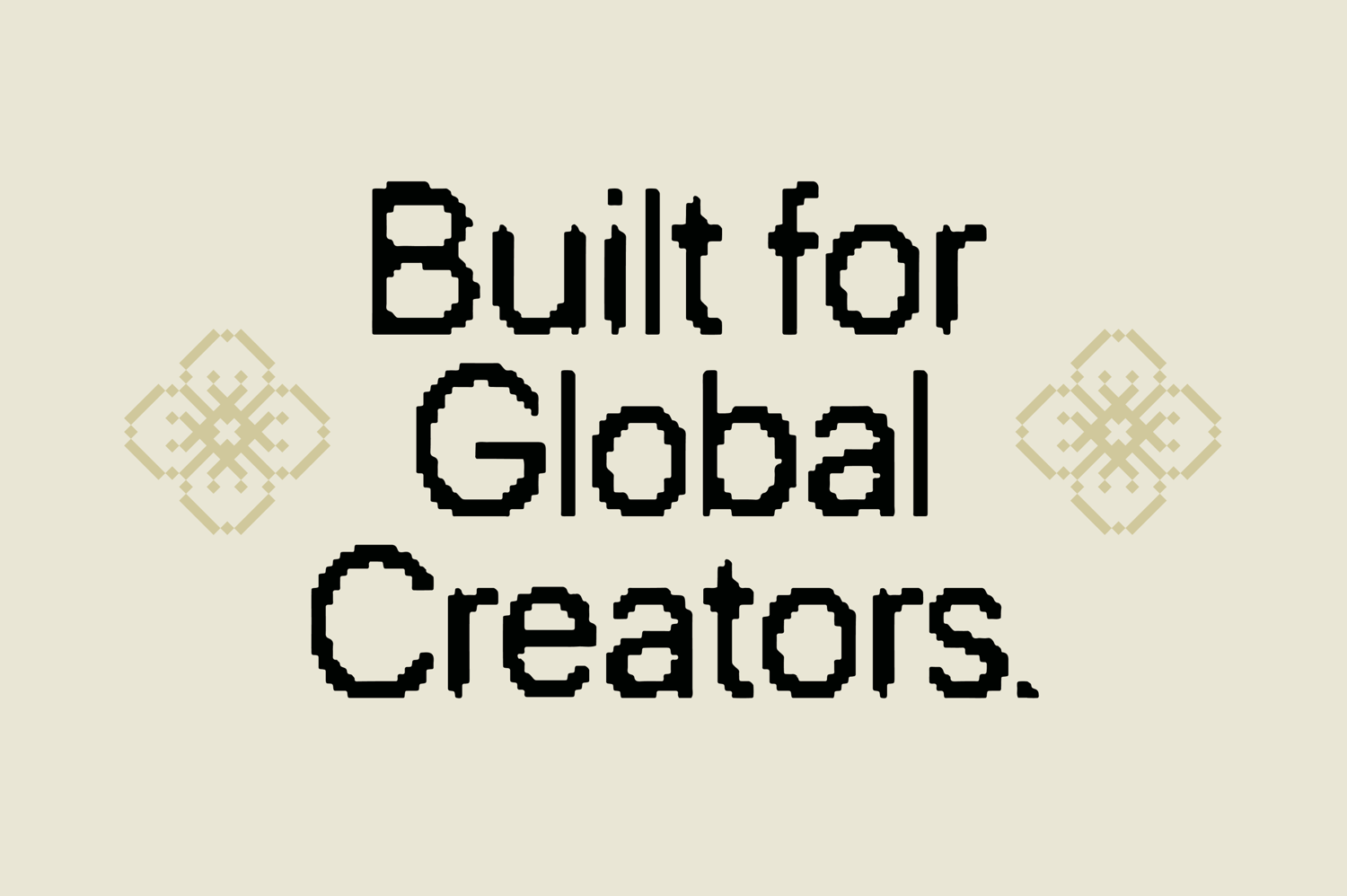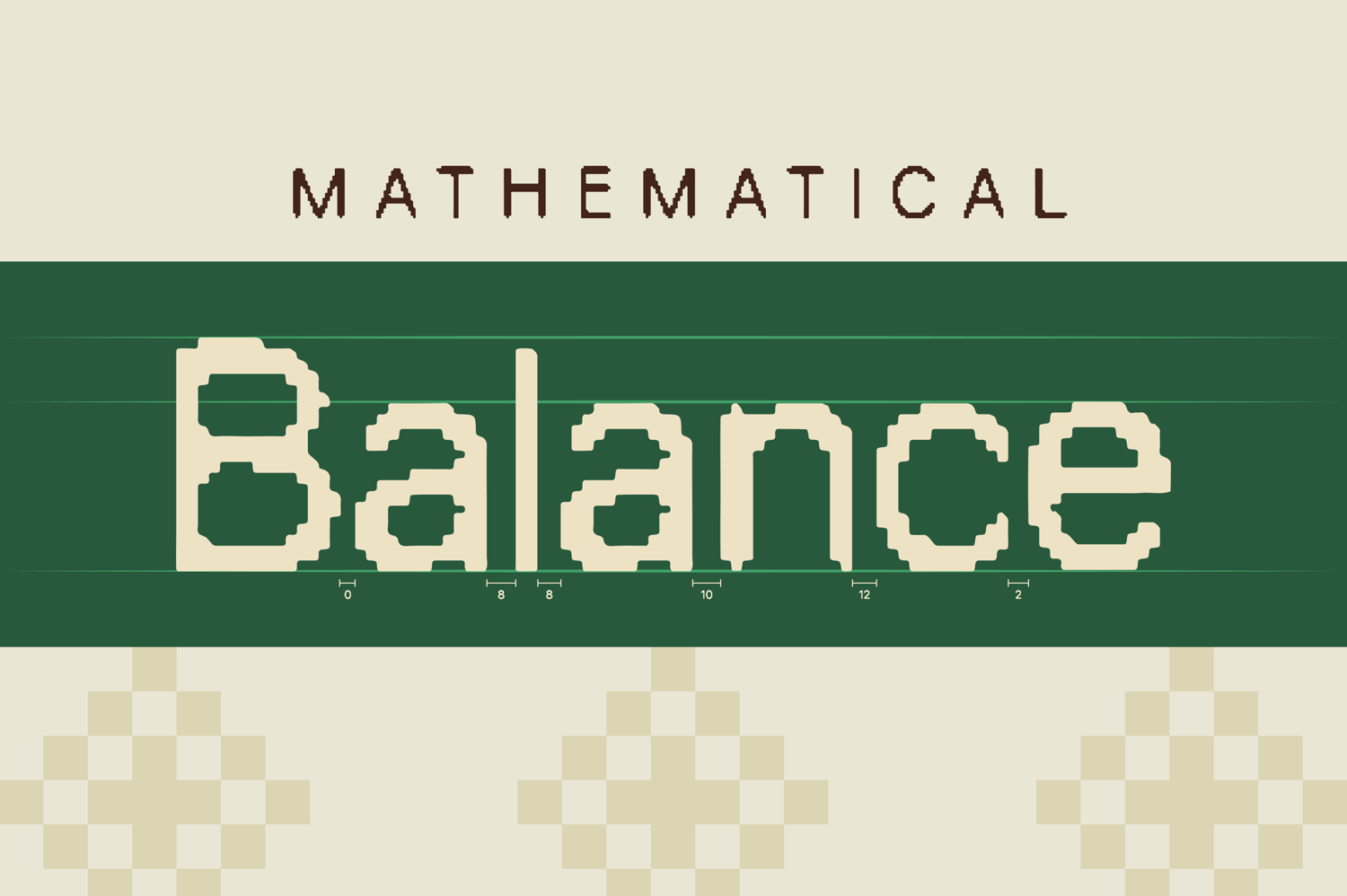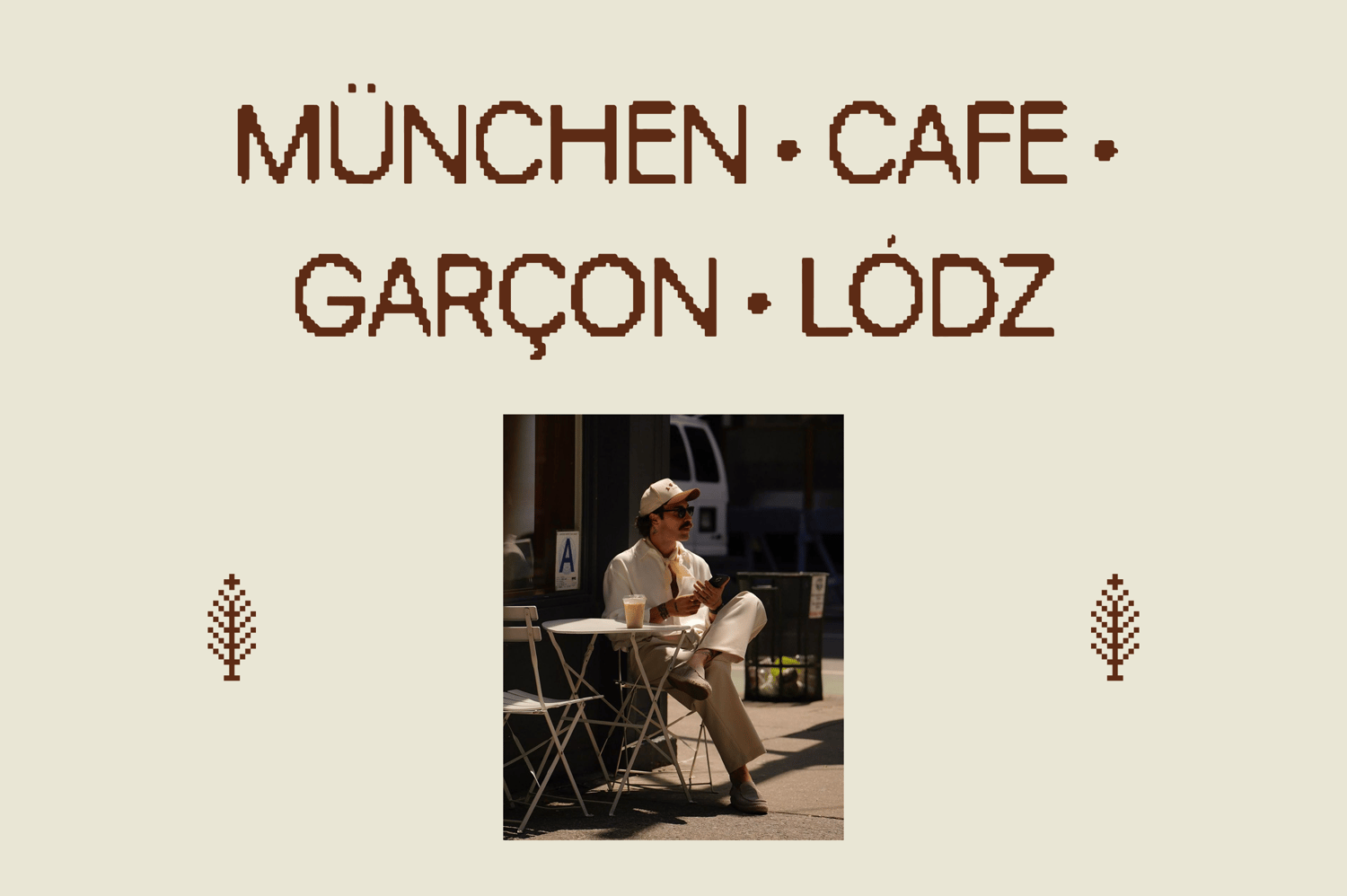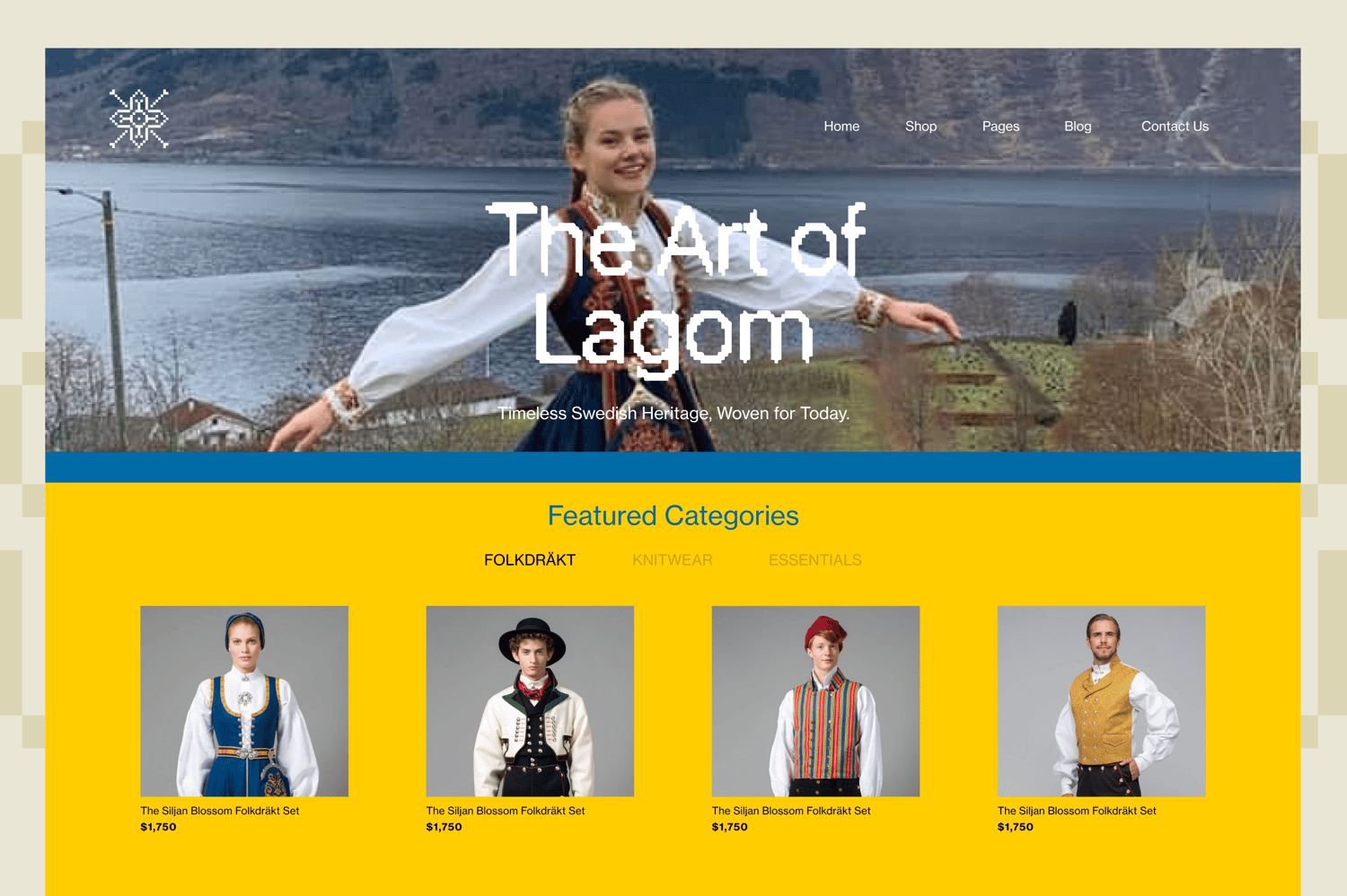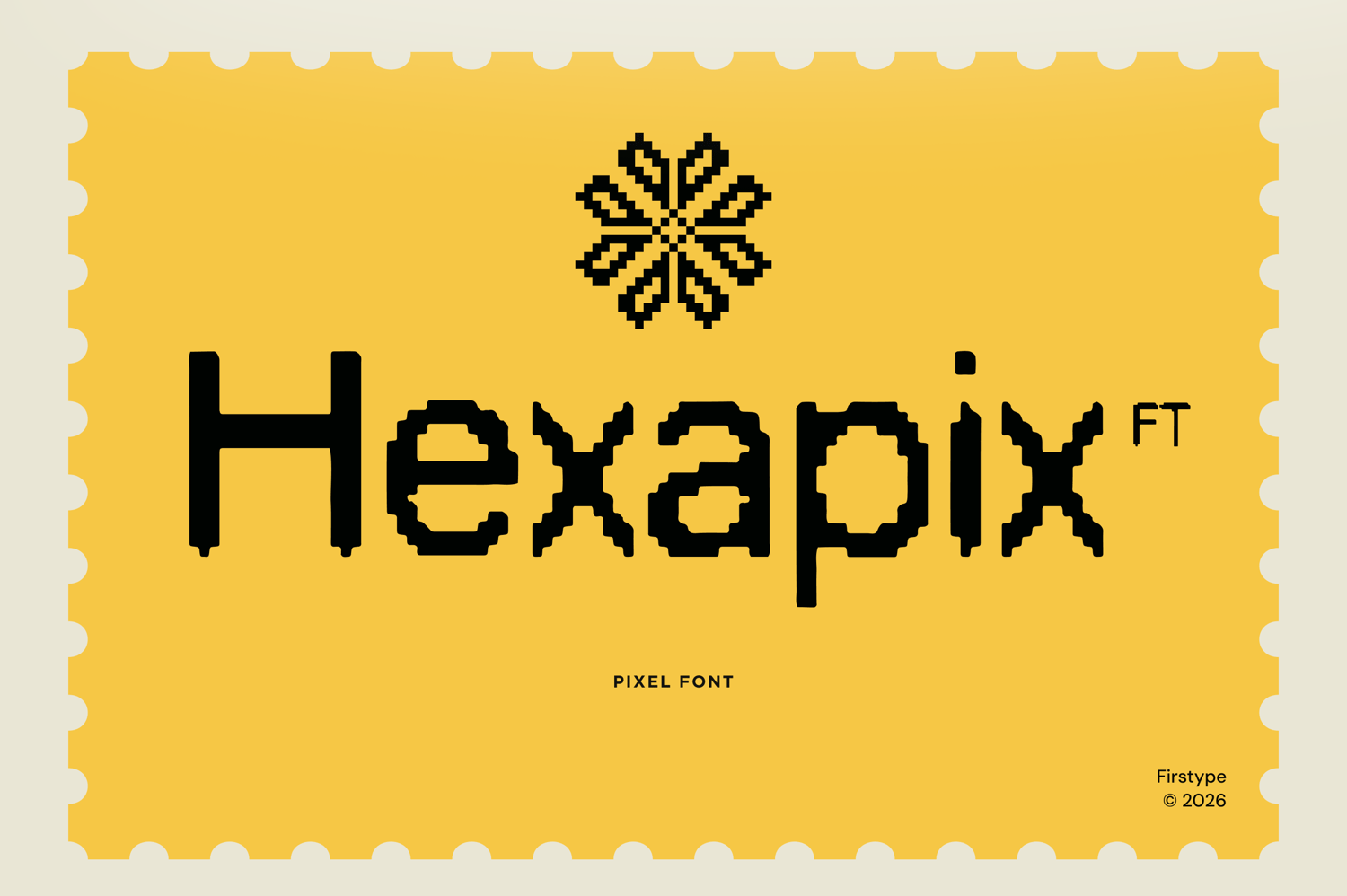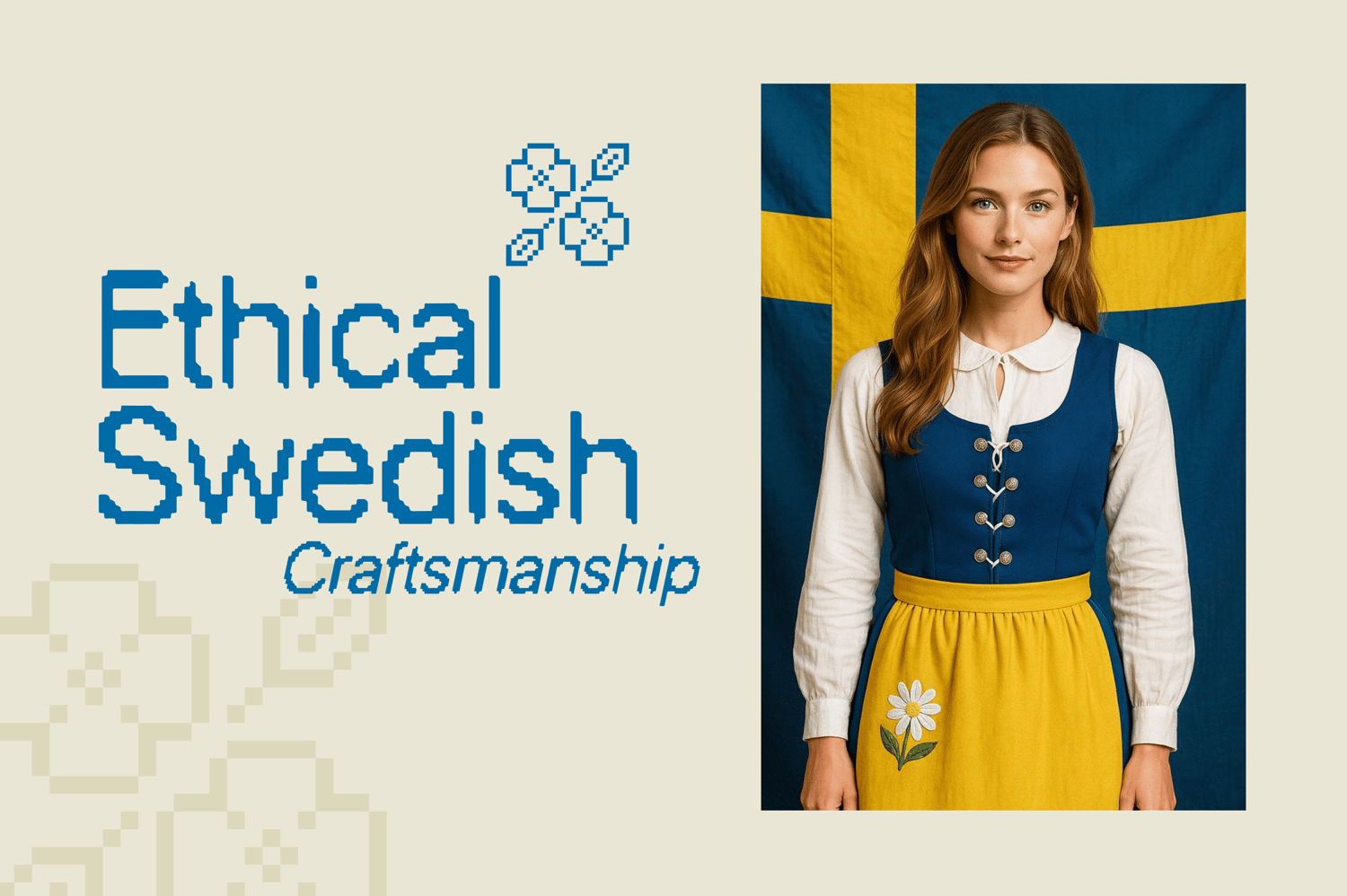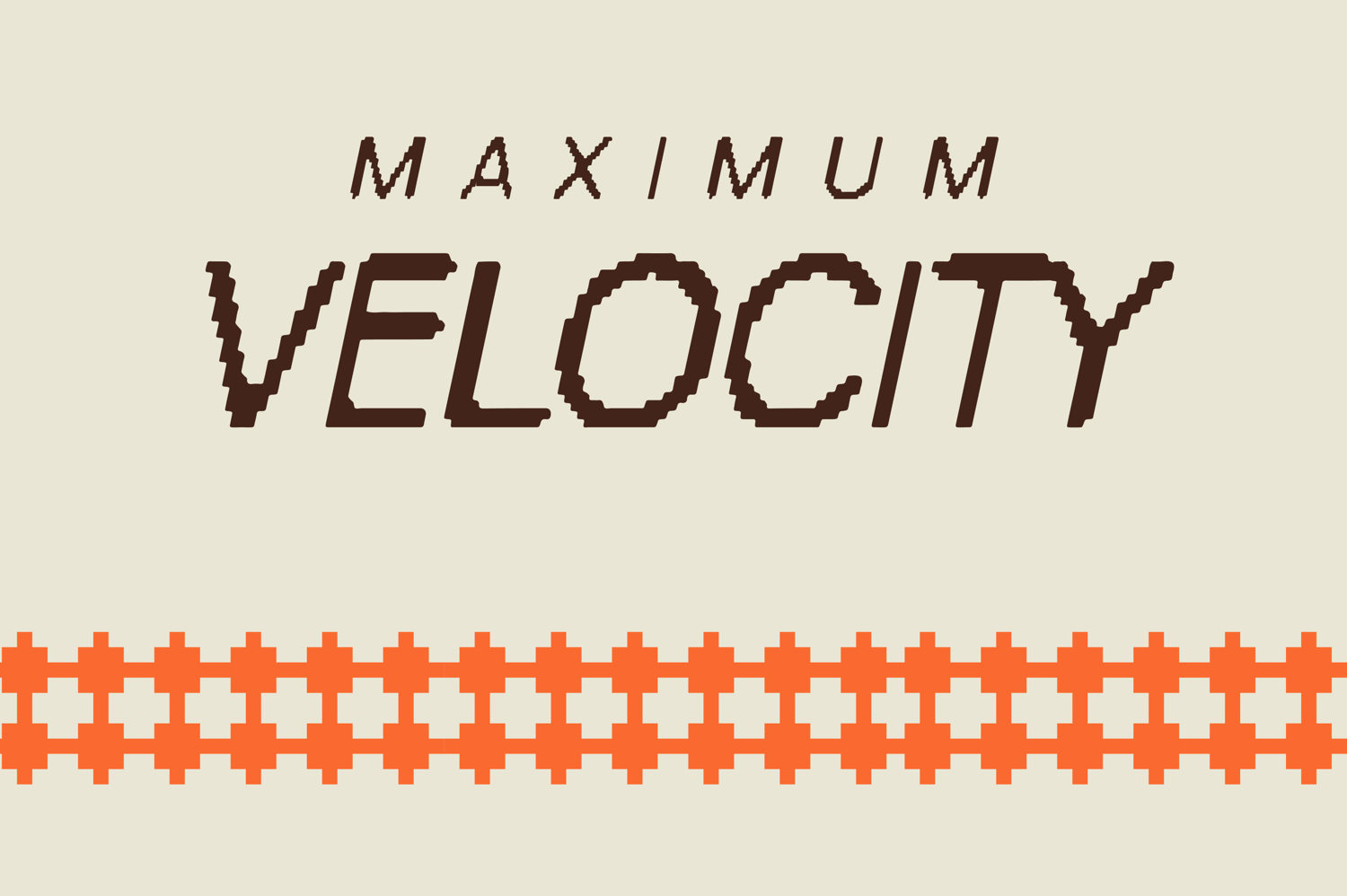
FT Hexapix - Nordic Pixel Display
Introducing FT Hexapix—a premium display pixel font inspired by the perfect balance of mathematical grids, modern tech velocity, and traditional Scandinavian craftsmanship. Moving beyond ordinary blocky pixel fonts, FT Hexapix features a distinctive textured edge that replicates folk embroidery, ethical craftsmanship patterns, and retro-futuristic layouts.
From high-velocity gaming UI and minimalist tech branding to elegant heritage e-commerce sites (like folk fashion and interior design), this typeface adapts effortlessly. Its high x-height and carefully calculated spacing ensure exceptional legibility at both large display headlines and smaller UI elements.
- Complete Character Set: Full uppercase, lowercase, numerals, and essential punctuation.
- Global Language Support: Includes extended Latin multilingual support and diacritics (e.g., München, Garçon, Łódź).
- Versatile Design Aesthetics: Perfect for game development, retro UI/UX, editorial poster design, apparel branding, and digital crafting.